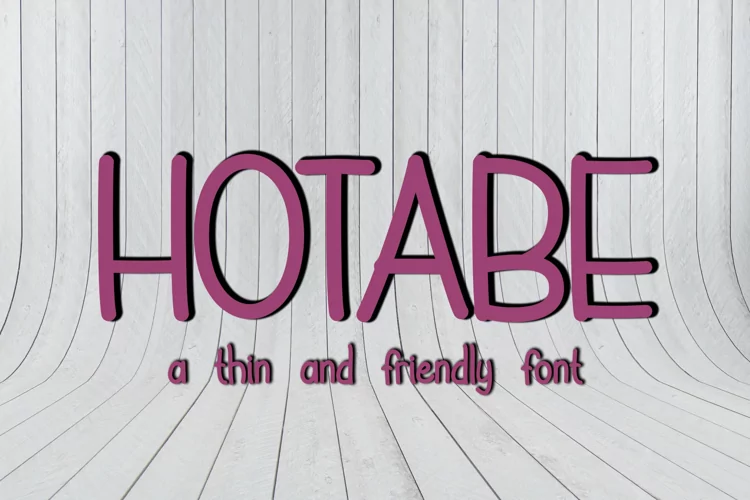
Hotabe
Hotabe is a thin, friendly and light lettered display font. No matter the topic, this font will be an incredible asset to your fonts’ library, as it has the potential to elevate any creation.